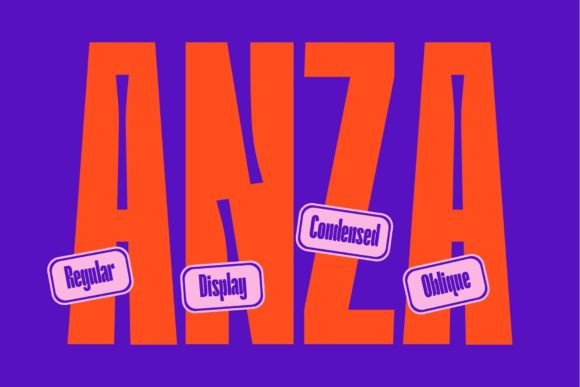
Behold Anza Font, the towering pinnacle of logo design, where boldness and grace intertwine. This tall, condensed sans serif display font, crafted by the visionary Surplus Type Co., exudes a captivating allure that commands attention.
Anza's striking features lie in its exaggerated ink trap stylings, a testament to its meticulous design. Each letterform is meticulously crafted to create a visually stunning impact, making Anza the perfect choice for large titles, headlines, branding projects, and editorial layouts. Its versatility extends beyond these domains, as Anza seamlessly elevates any design project with its innate elegance and sophistication.
Journey into the depths of Anza's character set, where you'll discover a treasure trove of alternate characters and ligatures, meticulously designed to optimize the visual appeal of even the most awkward pairings. These carefully curated elements add a touch of playfulness and uniqueness to your designs, ensuring that your message stands out from the crowd.
Anza's multilingual capabilities embrace a global audience, catering to diverse linguistic needs. Whether you're crafting a captivating logo, a thought-provoking headline, or an engaging editorial piece, Anza effortlessly accommodates multiple languages, allowing your message to resonate with a broader audience.
Immerse yourself in the world of Anza, where creativity knows no bounds. Unleash your imagination and embark on a design journey like no other. Transform your projects into captivating masterpieces, leaving a lasting impression that lingers in the minds of your audience.
From towering billboards to intimate business cards, Anza gracefully adorns any surface, captivating attention and igniting conversations. Its tall, condensed structure commands presence, ensuring your message cuts through the noise and leaves an indelible mark.
Anza is more than just a font; it's an artistic expression, a visual symphony that elevates your designs to new heights. Embrace the power of Anza and witness the transformative impact it brings to your creative endeavors.